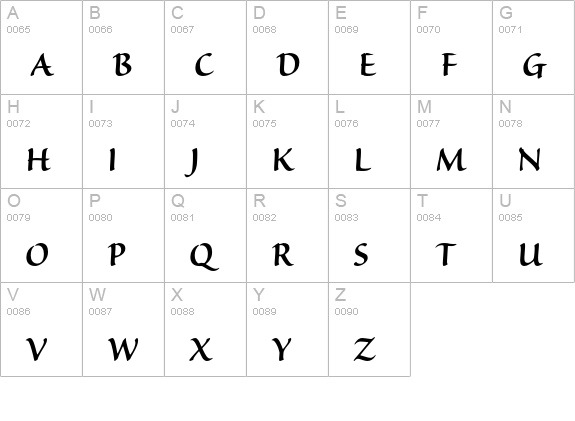
Sanvito Pro Semibold is a sub-bold, structured variant in the Sanvito typeface family \xE2\x80\x94 well suited to sub-headlines and emphasised passages.
Sanvito Pro Semibold font is a bold and striking typeface that exudes elegance and sophistication. Its strong and sturdy letterforms make it perfect for headlines, logos, and any design projects that require a strong visual impact. With its clean and modern look, Sanvito Pro Semibold font adds a touch of professionalism to any design. Whether you're creating a magazine layout, a website, or a branding project, this font will elevate your work to the next level. The unique feature of Sanvito Pro Semibold font is its versatility. It can be used in both formal and informal settings, making it suitable for a wide range of design applications. Its clear and legible letterforms ensure that your message is conveyed effectively, while its subtle elegance adds a touch of sophistication. One of the best things about Sanvito Pro Semibold font is that it is freely available to download at FontsMarket.com. This means that you can access this amazing font without any cost, making it a great choice for designers on a budget. So why wait? Give your designs a professional and stylish touch with Sanvito Pro Semibold font. Download it for free at FontsMarket.com and let your creativity soar.